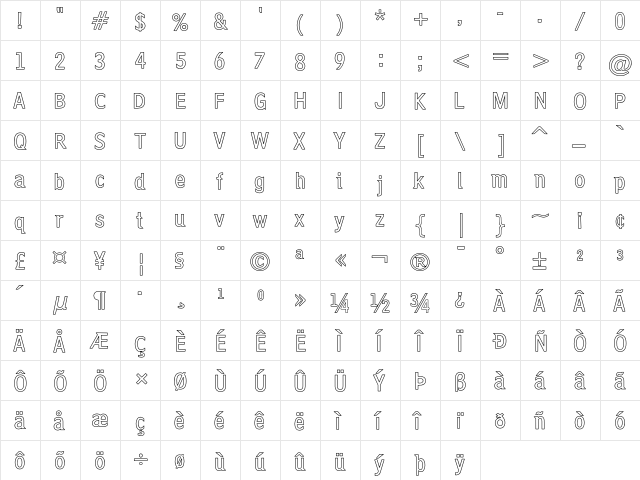
CliqueWedge OutlineBold
Design Context for CliqueWedge Typeface
CliqueWedge is built around its visual character rather than neutral utility — its distinctive forms are designed to make an impression at display sizes. The heavy weight commands attention and anchors typographic hierarchies.
Font Pairing: Pair with a clean neutral sans-serif for body copy to let CliqueWedge's character lead without overwhelming the composition.
Pro Tip: Use CliqueWedge exclusively at display sizes — it was designed to be seen, not read at length. Let a neutral companion handle body copy.